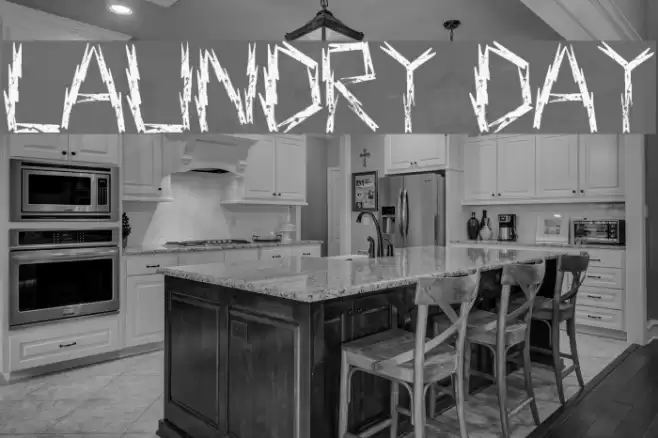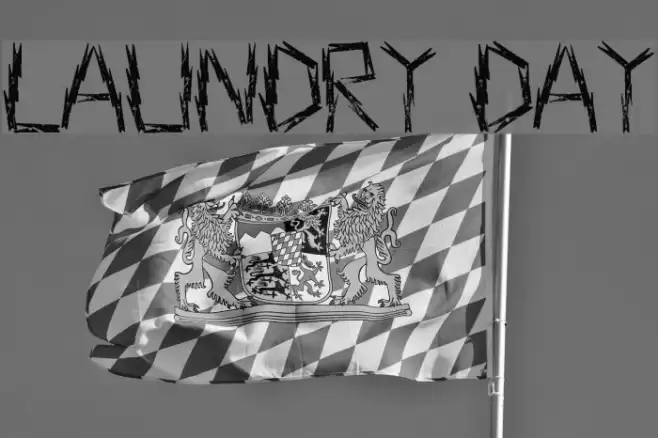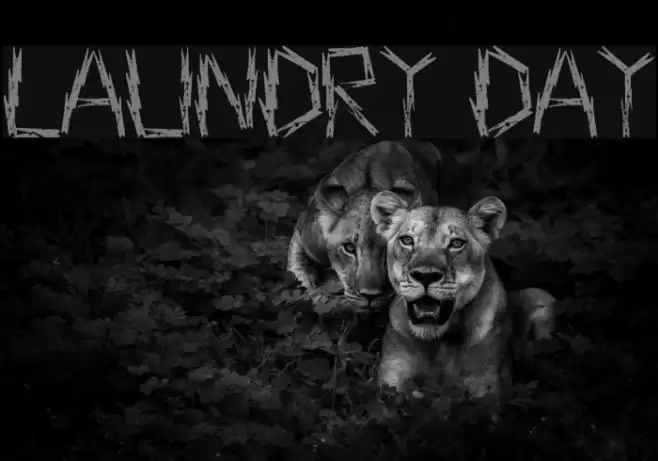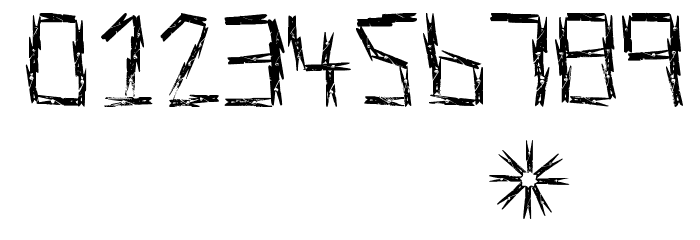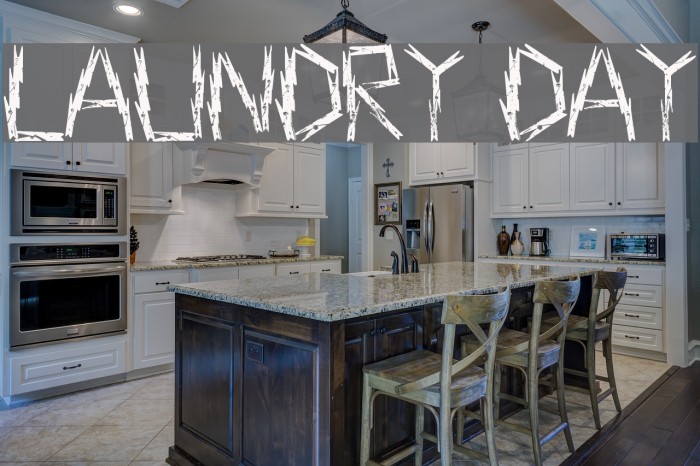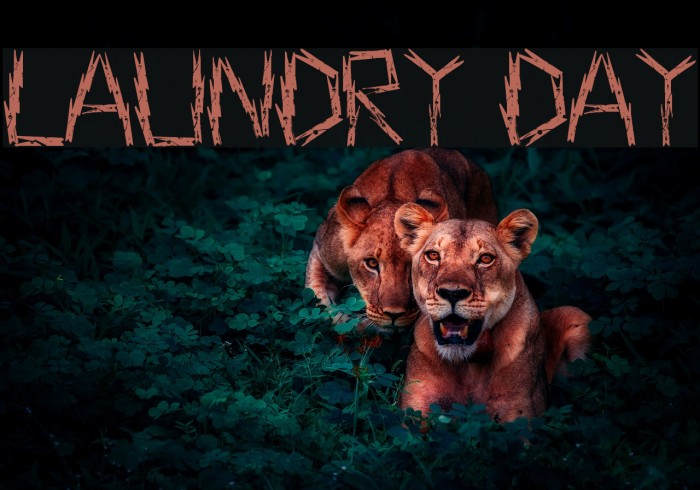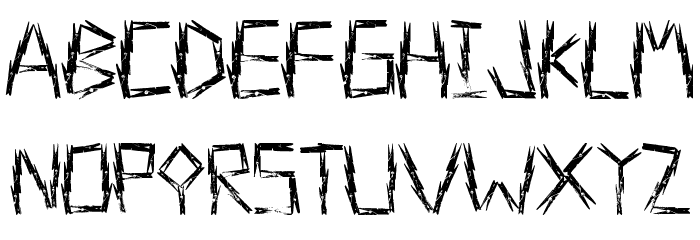
Laundry Day Font
Laundry Day Description
This font features a highly decorative and edgy style, characterized by its jagged, irregular strokes that give it a dynamic and chaotic appearance. The letters are constructed with sharp angles and uneven lines, creating a sense of movement and energy. This font is reminiscent of hand-drawn or sketched designs, with a rough texture that adds to its unique aesthetic. The uppercase and lowercase letters maintain a consistent style, while the numbers and special characters complement the overall look with similar jagged edges and bold forms.
A jagged, edgy font with irregular strokes and a dynamic, chaotic style from Decorative fonts.